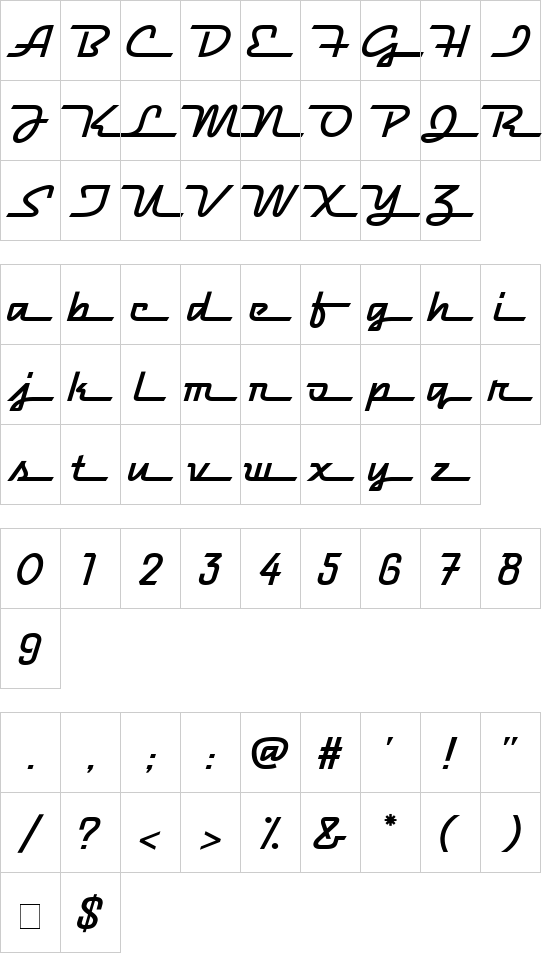
Raceway is a fast, dynamic display font with slanted, speed-suggesting letterforms inspired by motorsport styling. The forward lean and streamlined shapes give it a sense of acceleration, like badge lettering built for the track.
Raceway fits racing posters, automotive branding, sports gaming art, and bold headline graphics. It also works for performance merch and event promotion. The font is free to download as a TrueType file, and you can preview it with your own text before placing it in a layout.